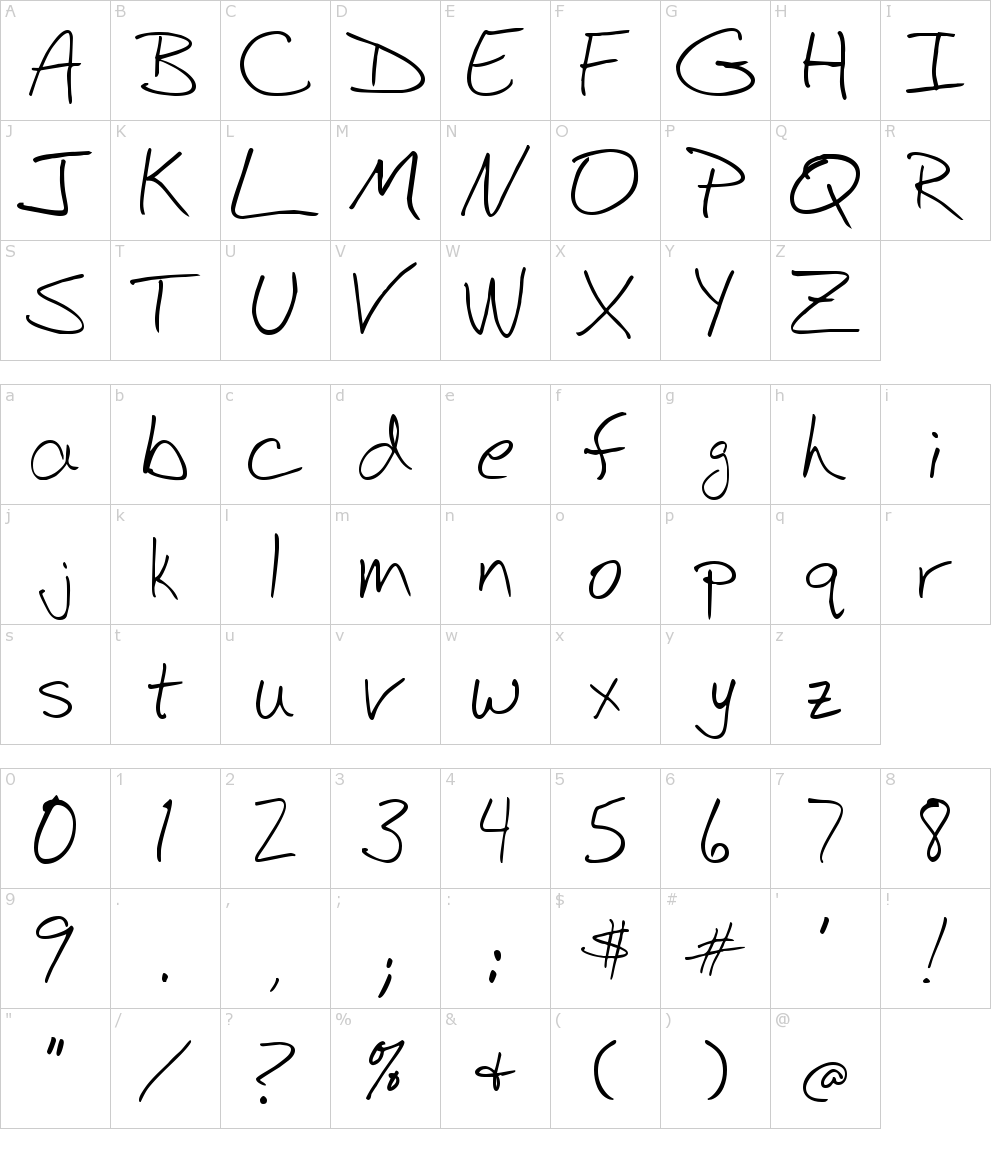
Loose Script Font Generator
Make cursive letters that you may post into your favourite social media platforms. Want an awesome script logo? Loopy fonts contain ornamental loops for pure decorative purpose, not intended to connect characters as with looped cursive fonts.
The Cursive Handwriting Style Is Functional And Intended To Be Used For Everyday Writing.